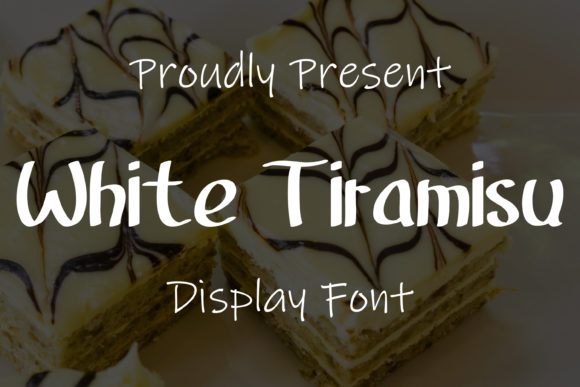
Unleash Your Creativity: White Tiramisu - The Handwritten Font for Line Designs
Step into a world of limitless creativity with White Tiramisu, the striking script font designed to elevate your designs to new heights. Each meticulously crafted letter dances across the page, embodying the essence of elegance and sophistication. White Tiramisu is not just a font; it's an artistic expression that transforms your words into captivating works of art. Embrace the beauty of handwritten charm and watch as your designs blossom with a touch of uniqueness.
Designed for the modern visionary, White Tiramisu is a versatile font that adapts seamlessly to a multitude of design projects. Whether you're crafting logos, branding materials, social media graphics, or website layouts, this font will add an instant touch of sophistication and charm. Its flowing lines and elegant curves create a visually captivating effect that draws the eye and leaves a lasting impression.
Immerse yourself in the world of White Tiramisu and discover the endless possibilities it offers. Unleash your creativity and let your designs shine with a touch of handwritten magic. Embrace the beauty of this font and watch as your projects come to life with a captivating new aura.